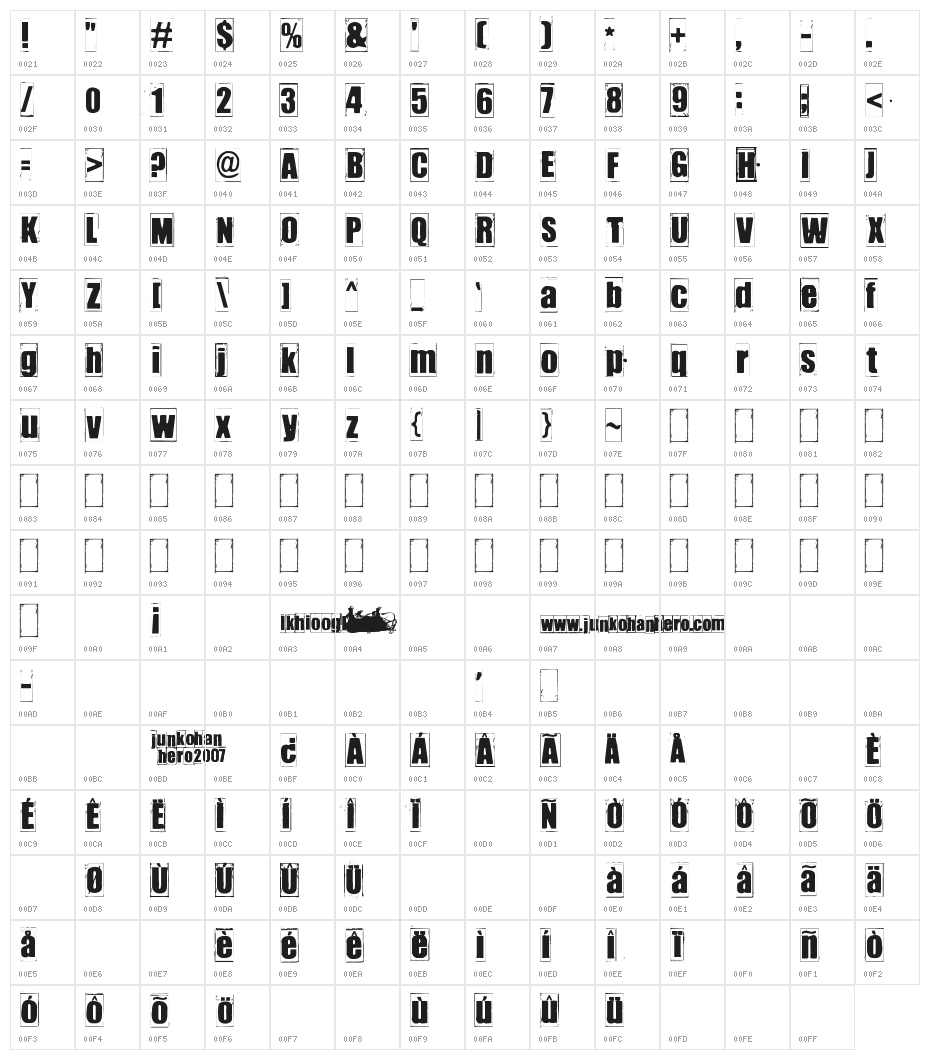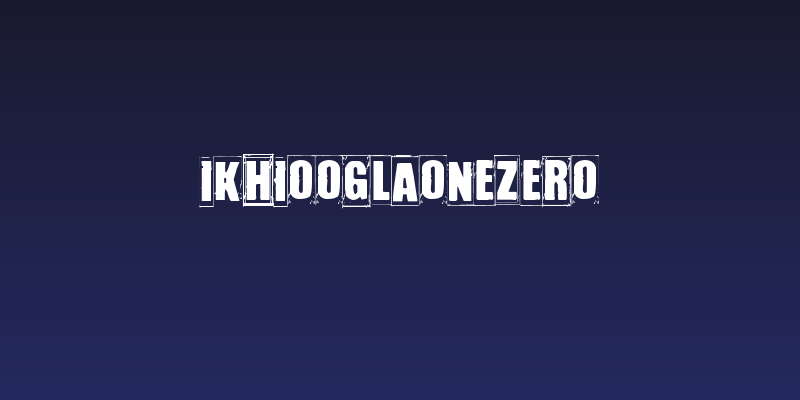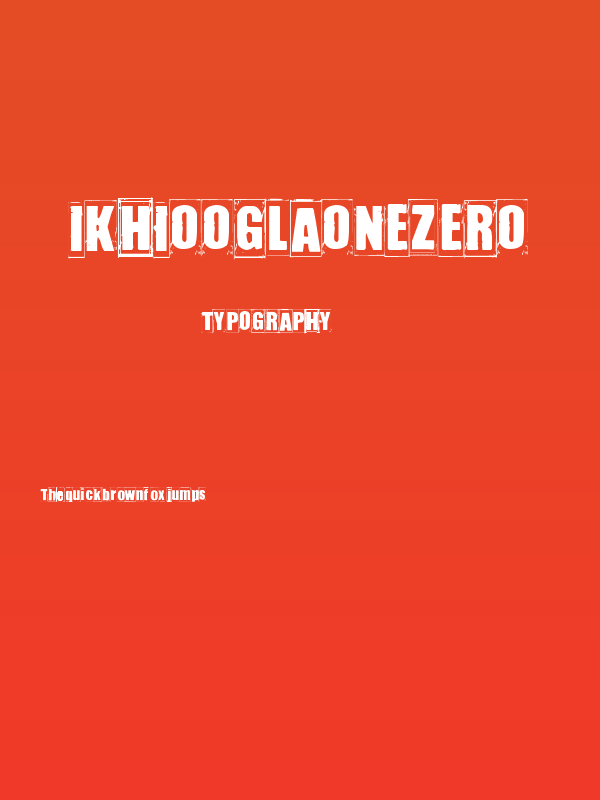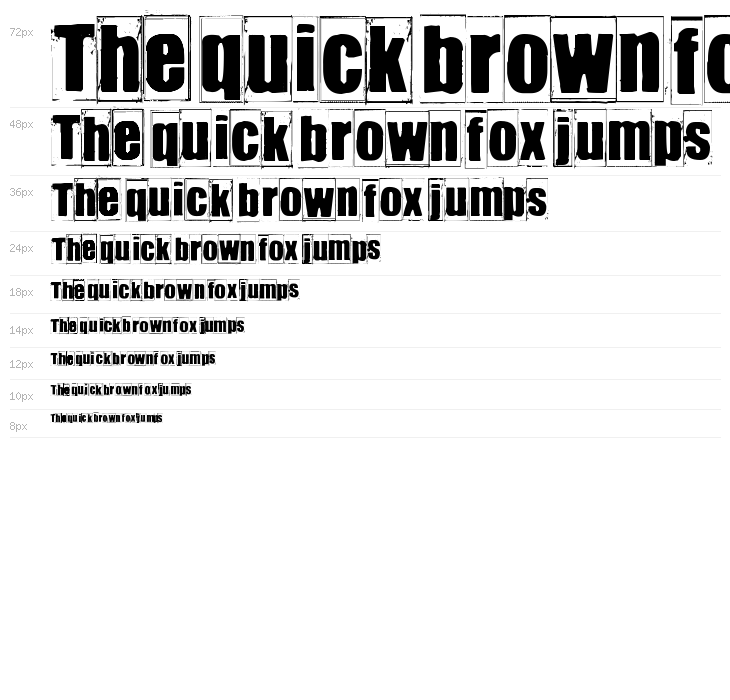
IKHIOOGLAonezero Font
IKHIOOGLAonezero Description
This font features a bold, distressed style with a vintage, grunge aesthetic. Each character appears to be stamped, giving it a rugged, textured look. The uppercase and lowercase letters maintain a consistent weight, with thick strokes and slightly uneven edges that enhance the worn effect. The numerals and special characters follow the same design, ensuring uniformity across all glyphs. This font's distinctive appearance makes it ideal for projects that require a strong, impactful visual presence.
| Proposed Projects | Ideal for posters, album covers, branding for edgy or retro-themed products, and any design needing a bold, vintage touch. |